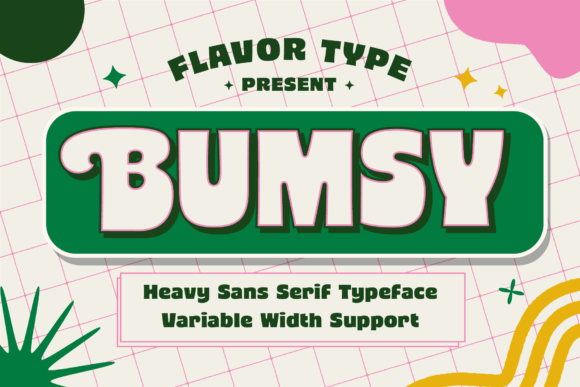
Behold Bumsy, the display font that exudes coolness, fun, and boldness! Unleash your creativity and make a statement with this thick lettered font, perfect for injecting personality into your designs. Whether you're crafting handmade cards, breathing life into digital creations, or delivering captivating presentations, Bumsy is your ultimate font companion.
Step into a world of limitless possibilities. With Bumsy, crafting projects become a delightful endeavor. Its thick, playful letters add a touch of whimsy to greeting cards, transforming them into cherished keepsakes. Embrace the digital realm and let Bumsy elevate your designs to new heights. Create eye-catching social media posts, website banners, and digital flyers that leave a lasting impression.
Transport your audience to extraordinary events with Bumsy as your font of choice. Craft event programs that radiate sophistication and charm. Design posters and invitations that ignite excitement and anticipation. Let Bumsy's bold presence amplify the message, making every event an unforgettable occasion.
Bumsy isn't just a font, it's an extension of your creative spirit. Embrace its versatility and transform your ideas into tangible masterpieces. Let Bumsy be your font of choice for presentations that leave a lasting impact, greeting cards that warm hearts, and digital designs that capture attention.
Join the creative revolution and let Bumsy ignite your imagination. Experience the joy of creating with a font that's as versatile as your own creativity. Make Bumsy your go-to font and embark on a journey of endless design possibilities.